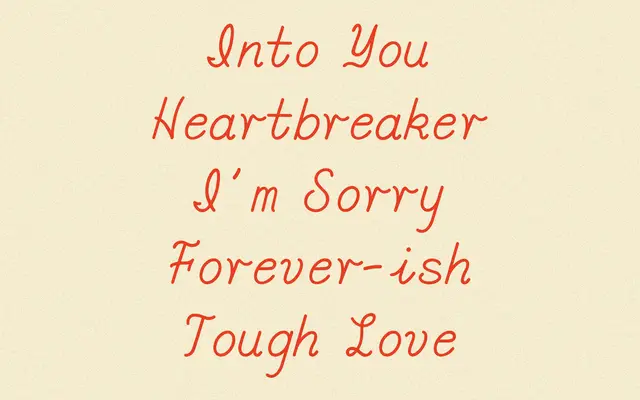
Stupid Cupid
A single-weight monospaced display font with an organic, slightly erratic character, positioned as a companion to the designer's Cupid typeface.
Built on a fixed-width grid but drawn with an informal, welcoming hand, it sits somewhere between a display novelty and a usable branding tool. The glyph set covers Basic Latin with a limited selection of accented characters, totalling 150 glyphs. Suited to short-form work where a relaxed, lo-fi mono aesthetic is wanted without the sterility of a coding font.
A monospaced typeface with an organic, hand-drawn character, placing it in the display mono subcategory rather than a utilitarian coding font.